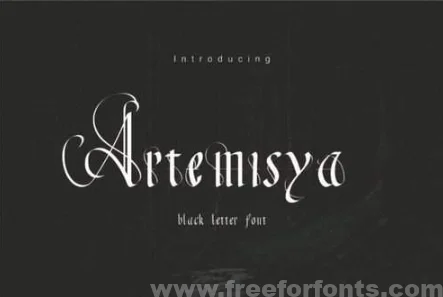
Artemisya Font
Artemisya Font is perfect for mystical branding projects, goddess-themed designs, spiritual wellness centers, moon phase calendars, nature-inspired logos, botanical product packaging, celestial event promotions, feminine empowerment campaigns, ancient mythology books, and ethereal artistic expressions.
Artemisya Font is exciting because it channels the divine feminine power and mystical wisdom of the ancient goddess Artemis through ethereal letterforms that evoke lunar magic and natural spirituality. This enchantingly designed typeface combines mythological inspiration with contemporary elegance, making it perfect for brands that want to communicate spiritual connection, feminine strength, and mystical authenticity.
The Artemisya Font family includes flowing weights with goddess-inspired styling, along with celestial decorative elements and mystical alternate characters. The font features moon-phase inspired details, nature-connected flourishes, and spiritual character variations that create a comprehensive typographic system for mystical and feminine empowerment applications.
Artemisya Font Free Download offers designers access to premium mystical typography that brings authentic goddess energy to contemporary design projects. This spiritually crafted typeface has been developed to honor ancient feminine wisdom traditions while ensuring optimal performance in modern applications. The font's ethereal character and divine inspiration make it ideal for wellness brands, spiritual organizations, and feminine empowerment movements.
The mystical appeal of Artemisya Font makes it an invaluable resource for spiritual teachers, wellness practitioners, and lifestyle brands that need typography capable of communicating divine feminine energy and natural wisdom. The font's goddess-inspired character helps establish connections with audiences seeking spiritual growth, natural healing, and feminine empowerment through authentic mystical experiences.
Wellness centers, spiritual coaches, and nature-focused businesses consistently choose Artemisya Font for its ability to convey goddess energy and mystical sophistication through typography. The font excels in applications where establishing spiritual credibility and feminine divine connection are essential to brand positioning, making it particularly effective for holistic healing, spiritual guidance, and natural wellness brands targeting spiritually conscious consumers.
This font's comprehensive character set includes goddess-inspired letterforms, celestial numerals, mystical punctuation marks, and spiritual symbols that support authentic divine feminine typography composition. The consistent ethereal styling maintains the goddess theme throughout all characters while ensuring professional readability across all mystical and spiritual design projects requiring Artemisya Font Free Download functionality.